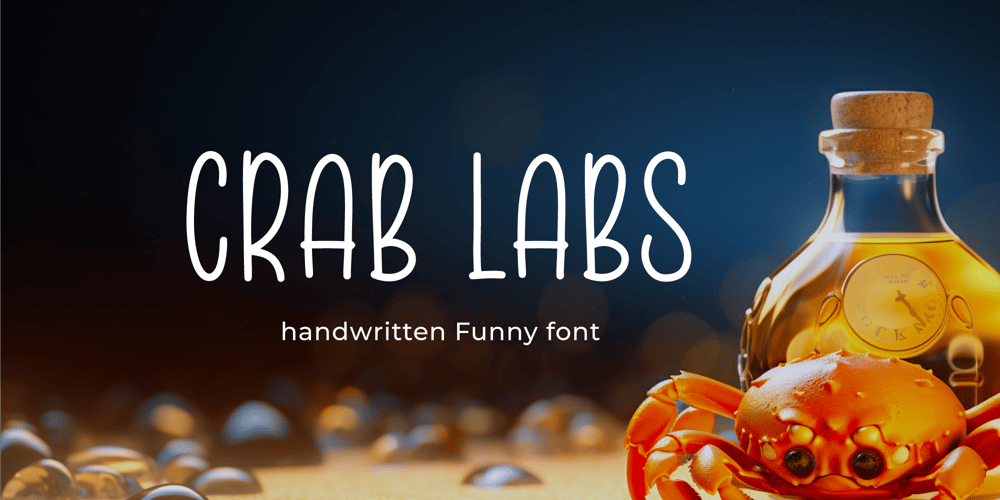
Crab Labs Font Family was designed by Agustian Eko Saputro, Aprilia Nurina Putri and published by Mightyfire. Crab Labs contains 1 styles and family package options. Crab Labs exudes a refined and modern aesthetic, characterized by its sleek and minimalistic design. This typeface features slender, unembellished letterforms that convey a sense of elegance and simplicity. The absence of serifs, or decorative strokes, imparts a clean and contemporary appearance, making it well-suited for a variety of design applications.